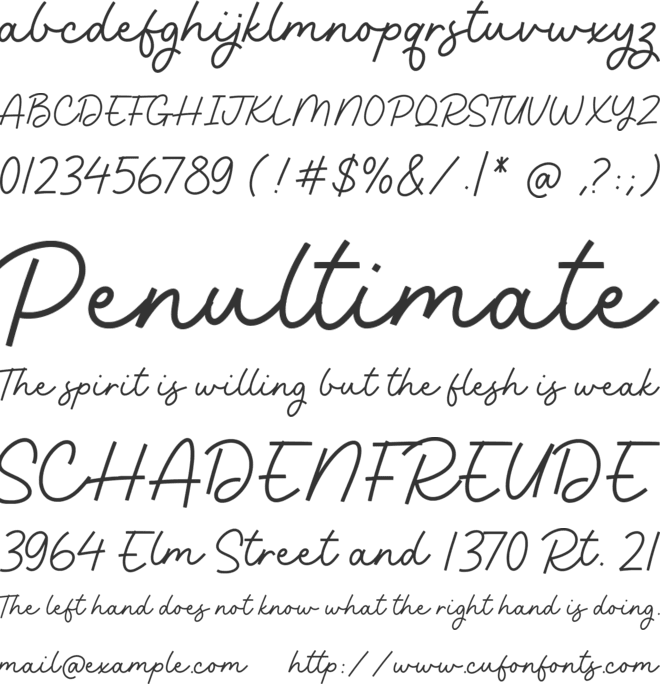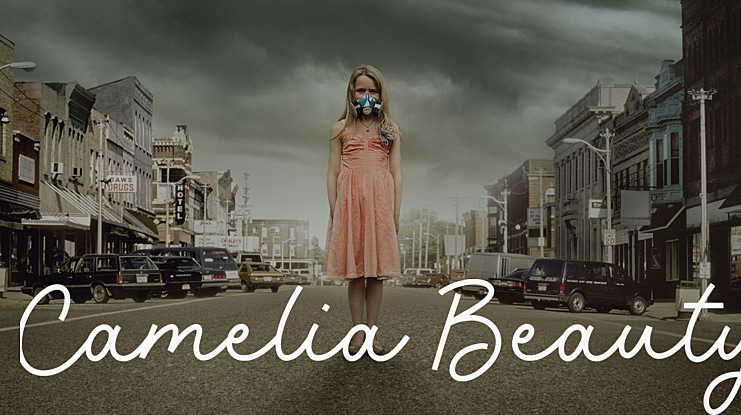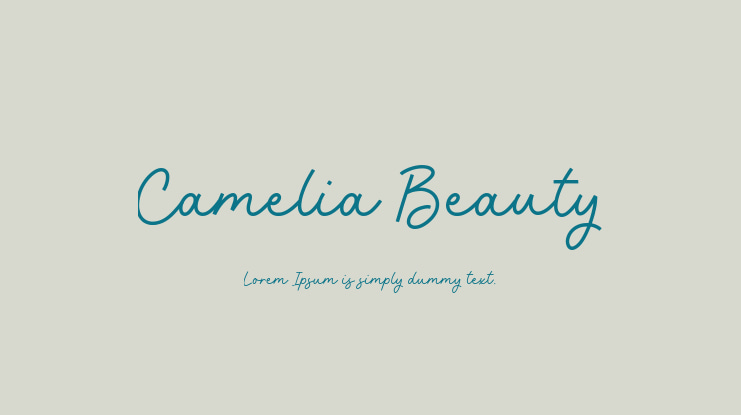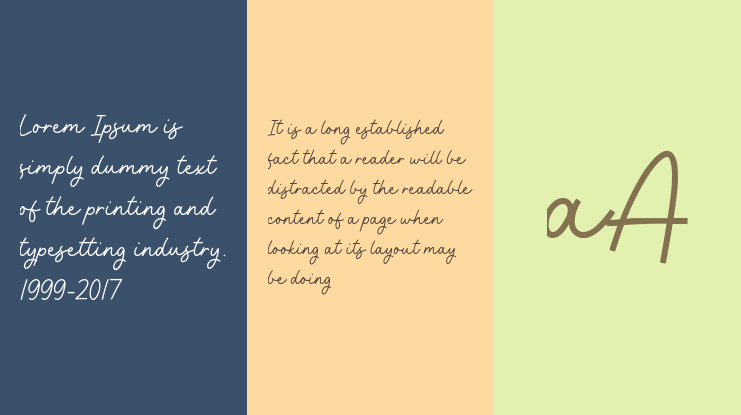
Camelia Beauty is a monoline script font that offers a stylish and elegant option for a variety of design projects. Drawing inspiration from Latin script, this font features smooth and flowing lines, giving it a sophisticated look. With consistent stroke weight, each letter maintains a balanced and harmonious appearance.
Meticulously crafted with precision and care, this monoline script font exudes a timeless appeal. Its graceful curves and connected letterforms create a seamless rhythm, adding a touch of fluidity to any text. Whether used for branding, invitations, logos, or headlines, this font effortlessly captures attention and emanates refined elegance.
The simplicity of the monoline style enhances the font's readability and versatility. It can seamlessly blend with both vintage and contemporary designs, making it a perfect choice for a wide range of projects. The Latin form of the font adds a universally recognized and familiar appeal, ensuring clear communication in various languages.
Overall, this monoline script font combines classic charm with a modern sensibility. Its flowing lines, elegant curves, and clear legibility make it an ideal choice for designs seeking to convey sophistication and timeless beauty.